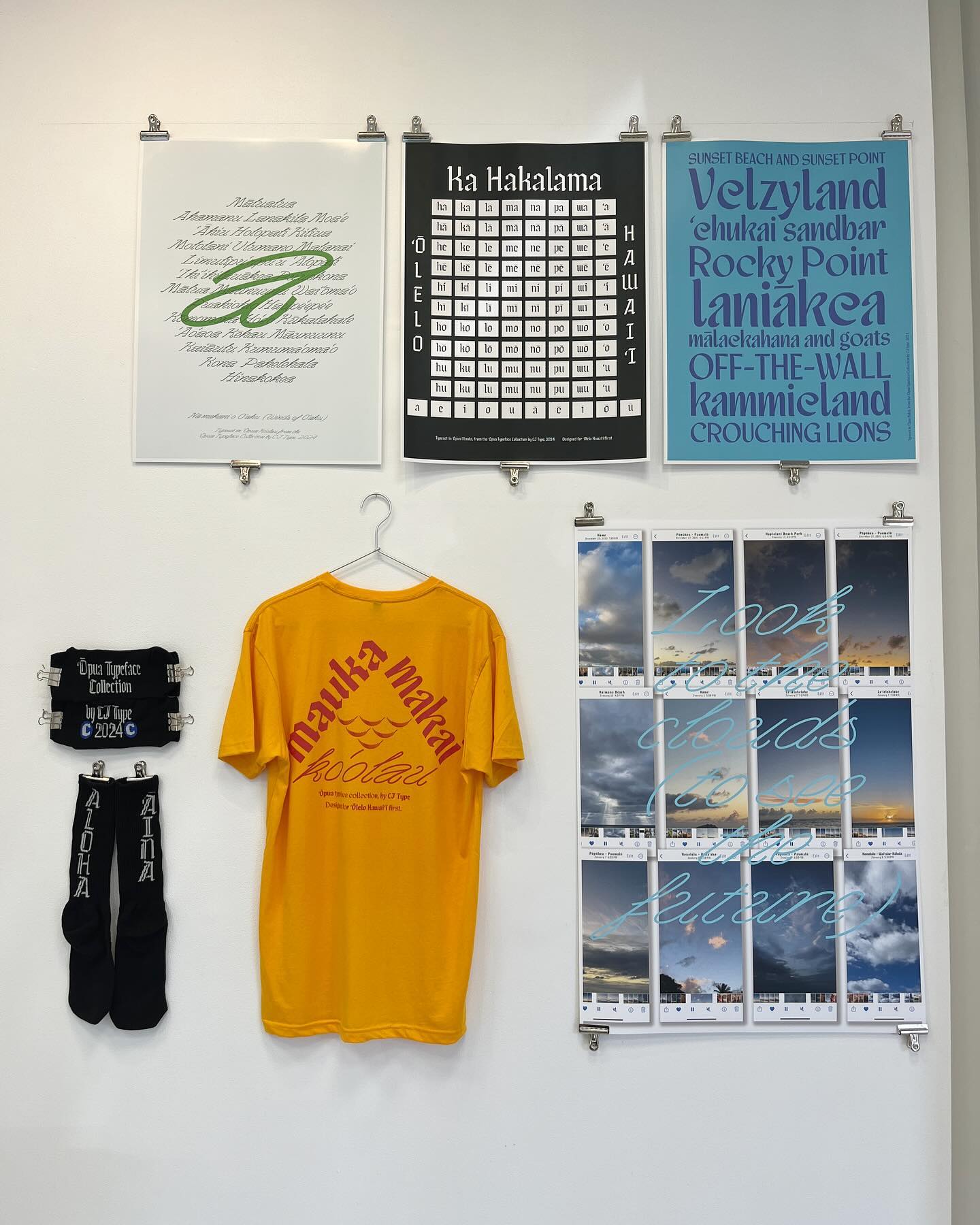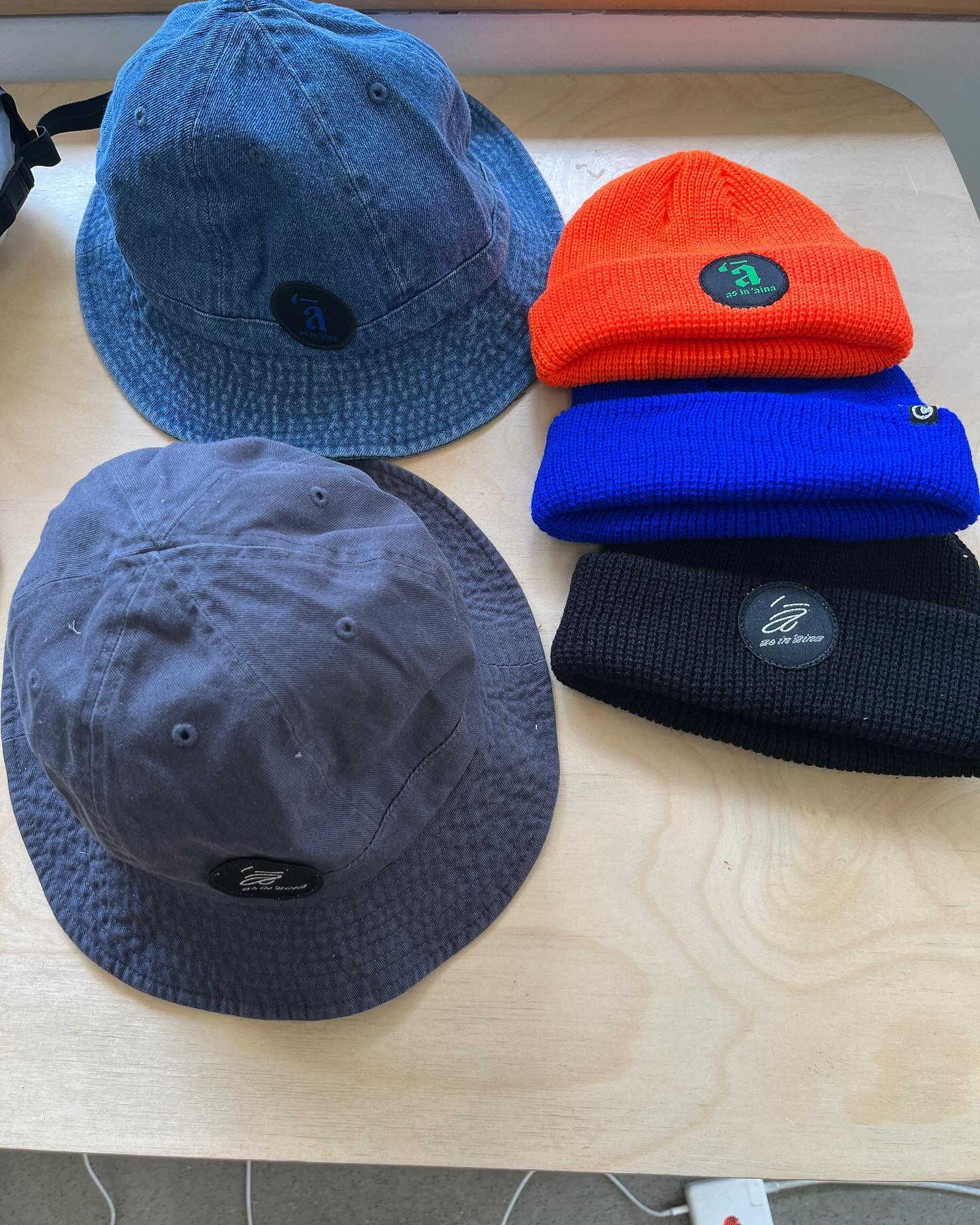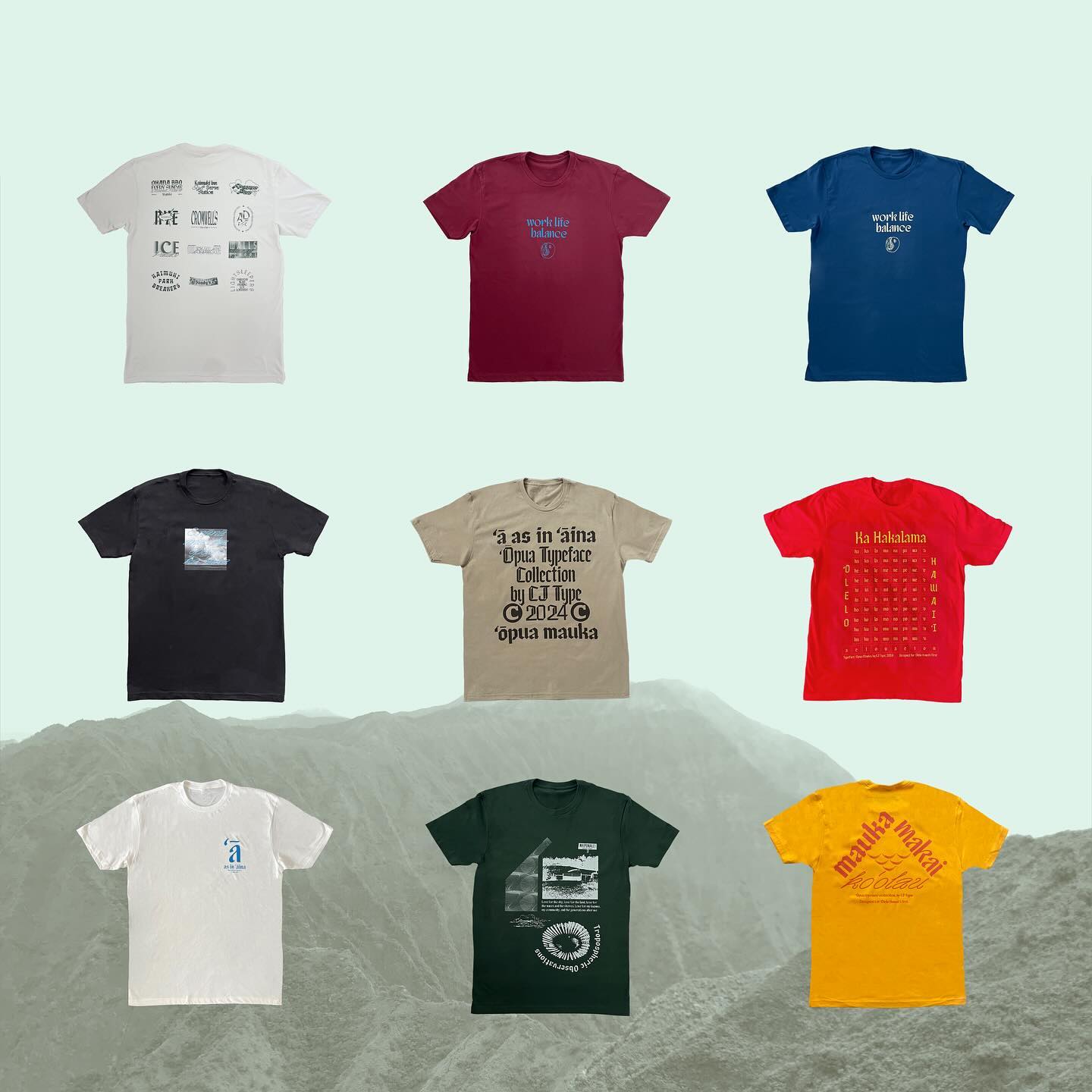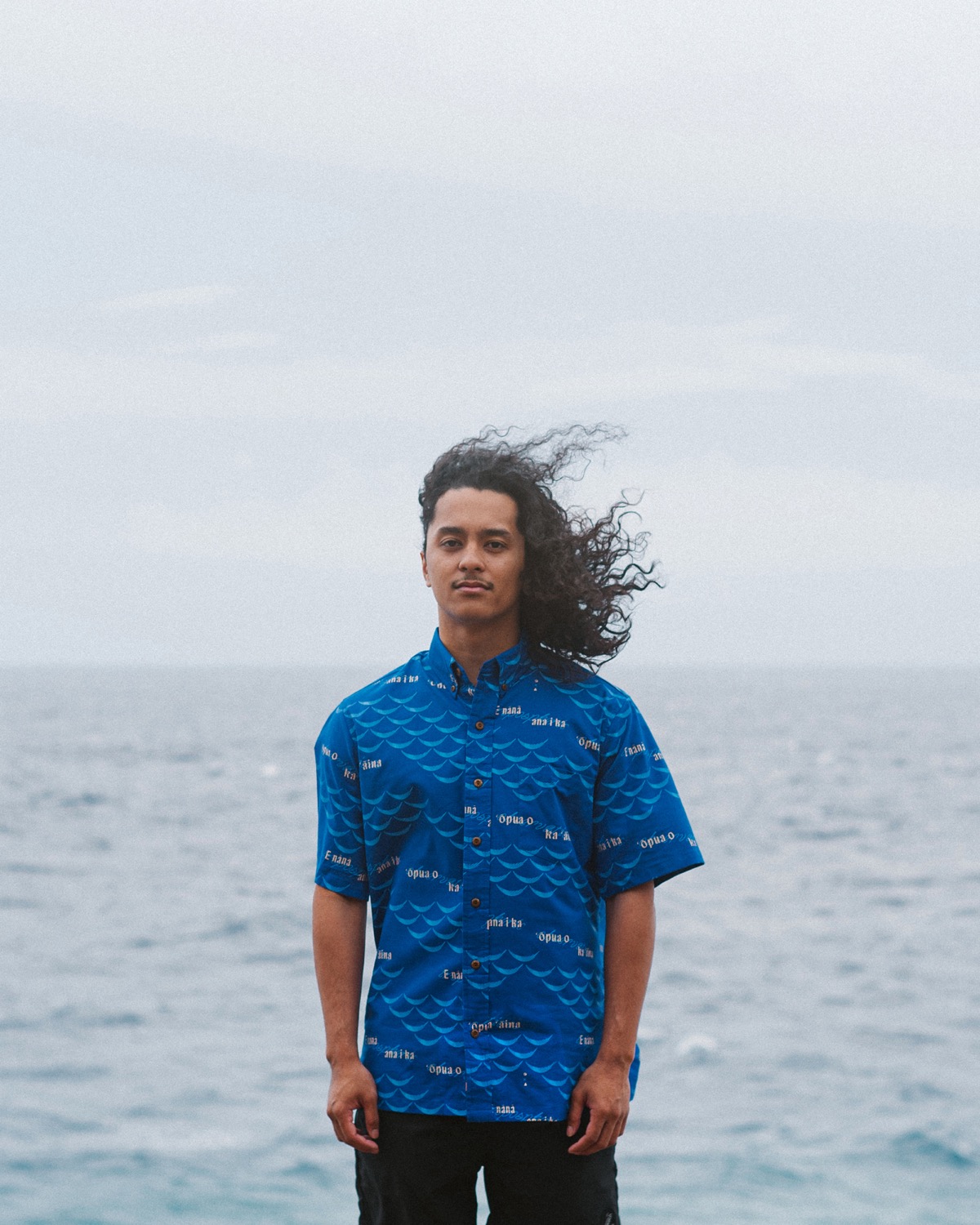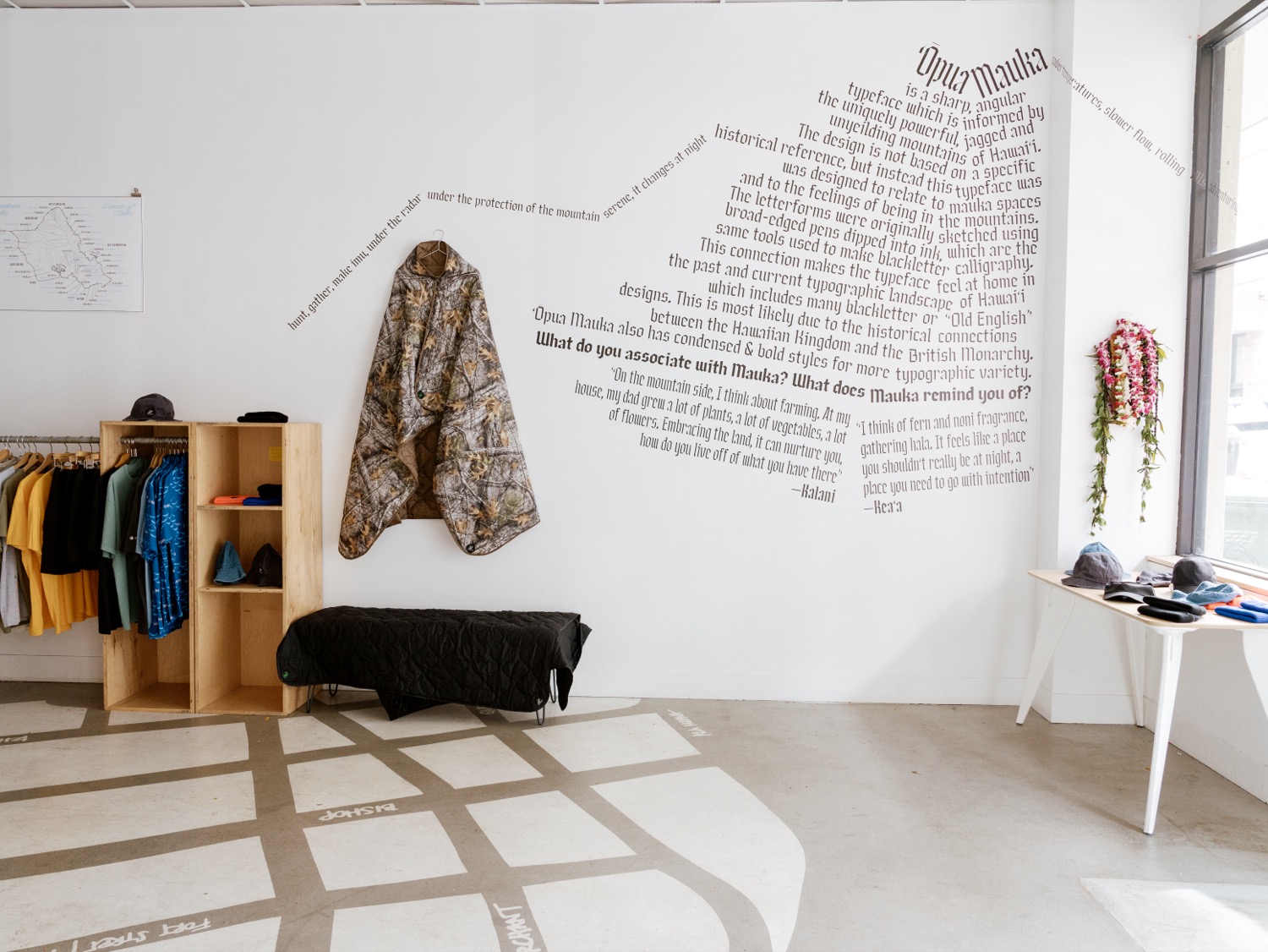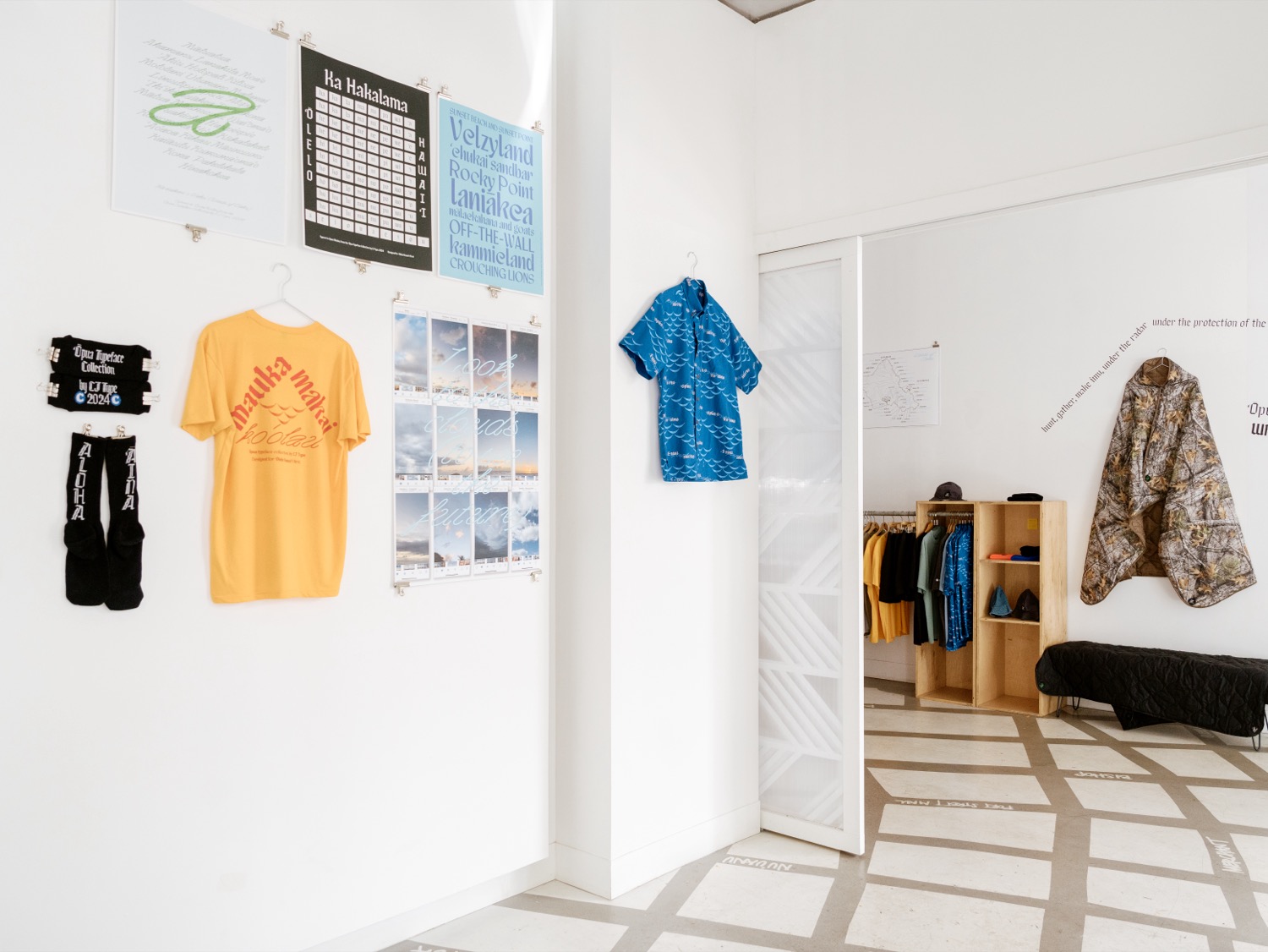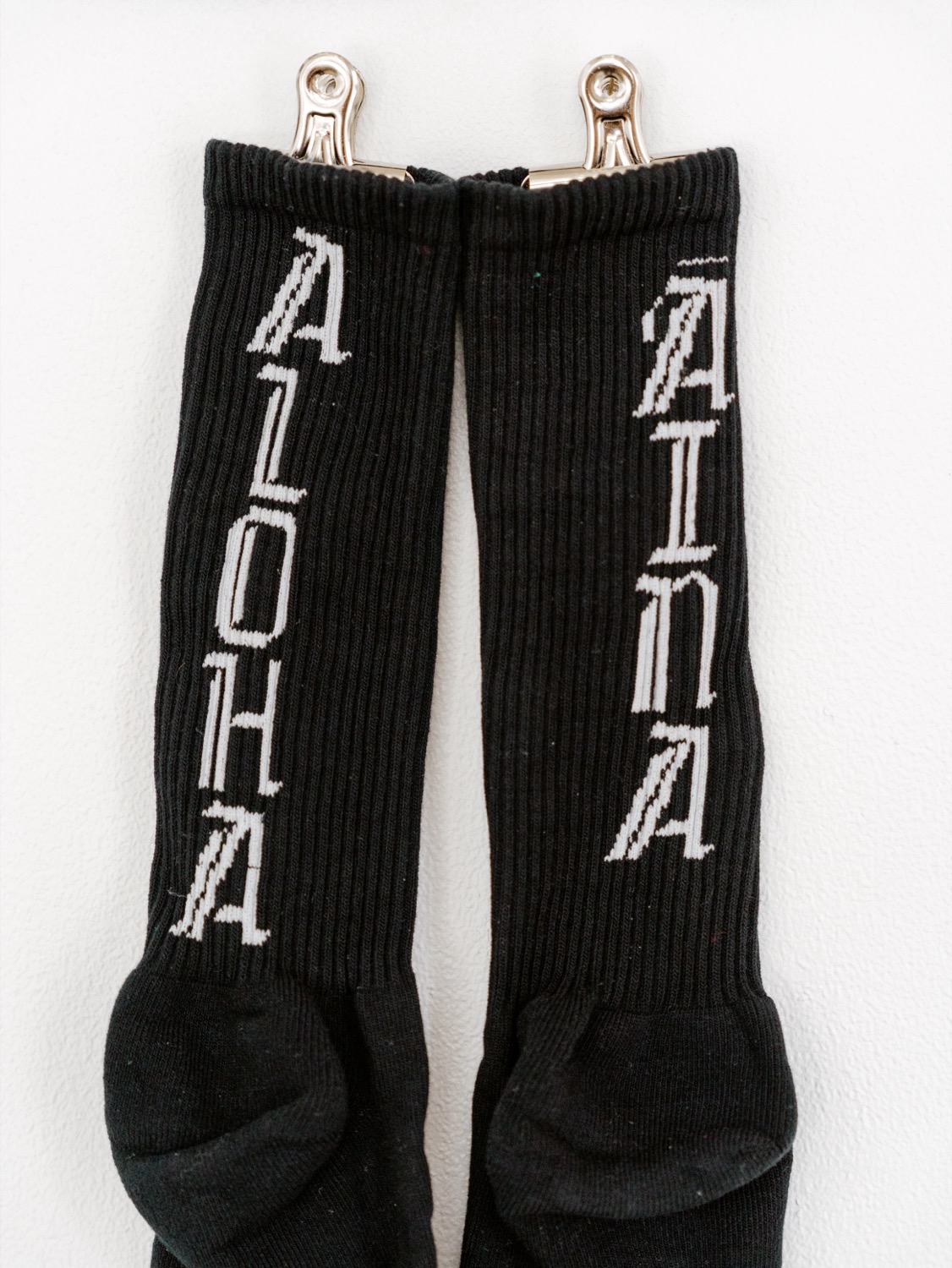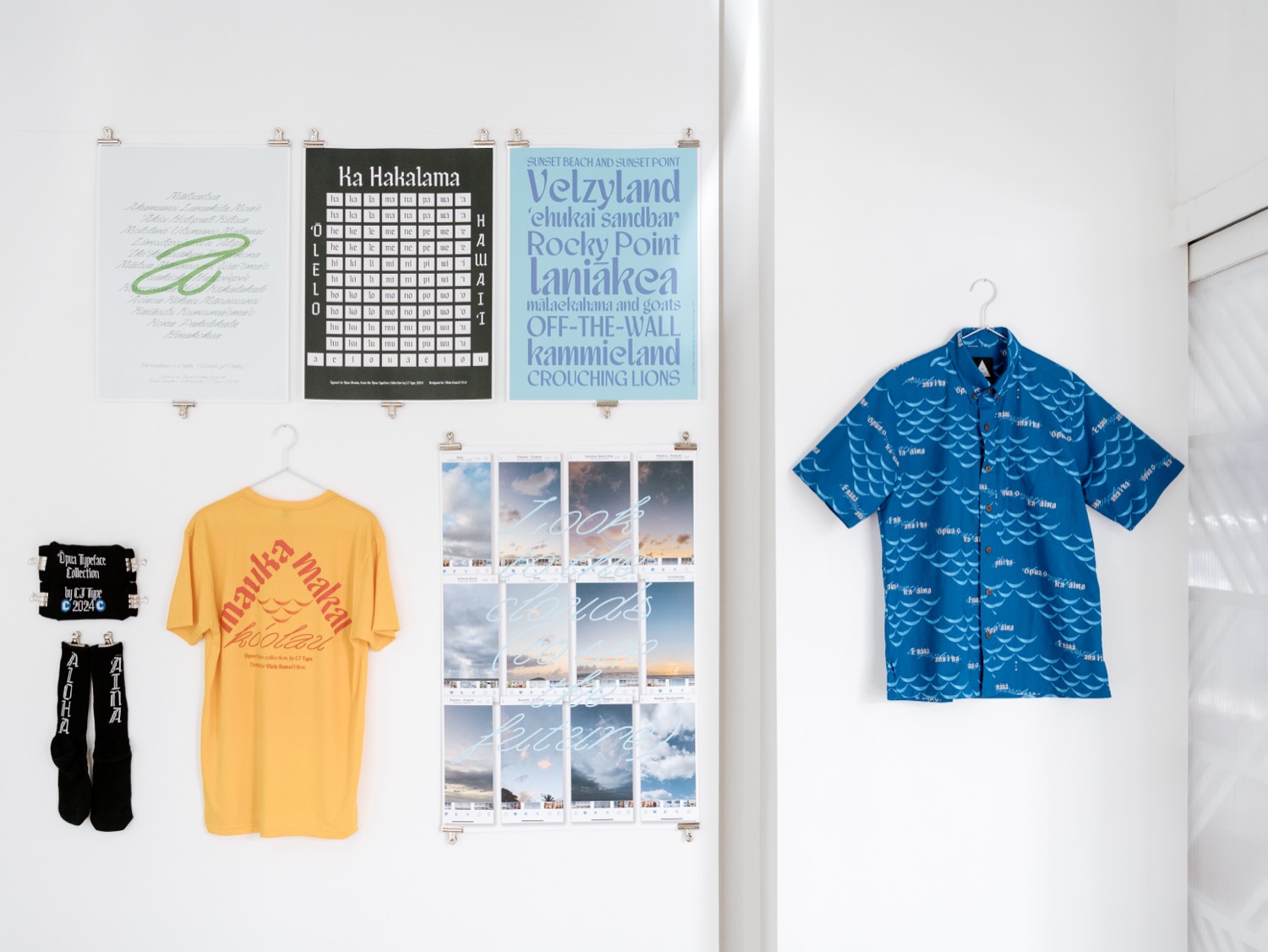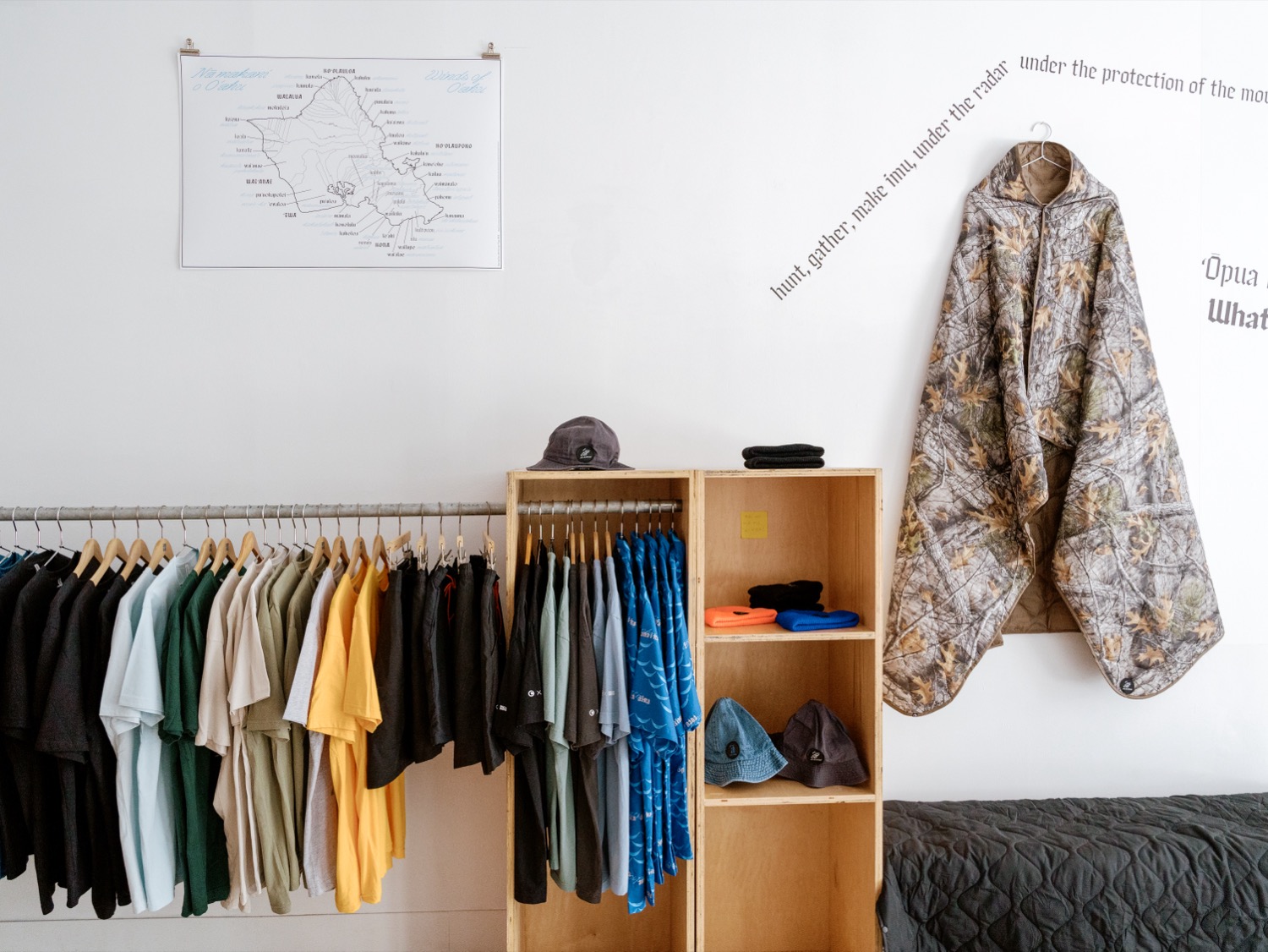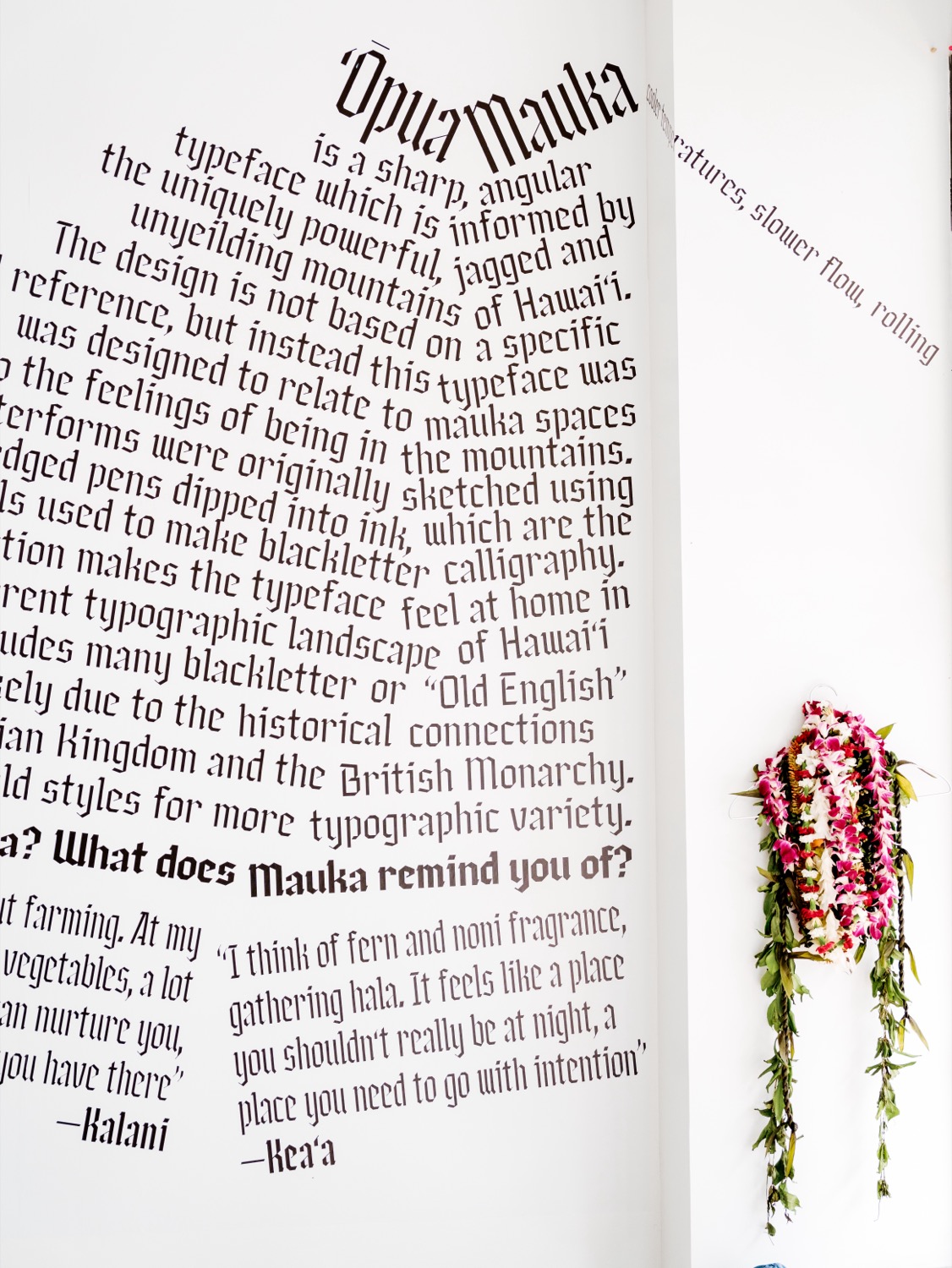
ʻŌpua Typeface Collection exhibition at Kaiao Space
by CJ Dunn, Marika Higgins
ʻŌpua is a collection of typefaces from CJ Type developed around the concept of Hawaiʻi futurism. The collection contains three sub-families connected to Hawaiʻi, specifically ʻŌpua Mauka (the mountain side) ʻŌpua Makai (the ocean side) and ʻŌpua Ko'olau (the windward side). The typefaces were first used on an aloha shirt released with Sig on Smith, with an accompanying exhibition at Kaiao Space to tell the story of the typeface development and show examples of it used for posters, apparel, signage, and a video installation.